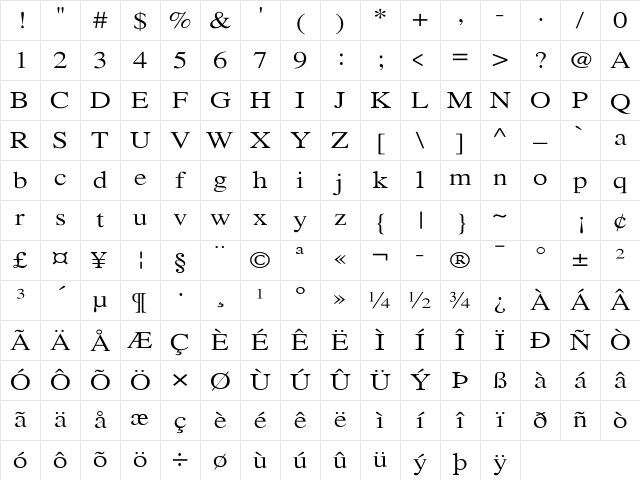
Xerox Serif Wide Regular
Xerox Serif Wide Family
Xerox Serif Wide Regular
Complete Xerox Serif Wide Regular glyph index. Displaying only characters natively supported by Xerox Serif Wide Regular font.
Design Context for Xerox Serif Wide
Xerox Serif Wide carries the refined structure of traditional serif typography, with bracketed terminals and considered proportions that communicate credibility and craft.
Pro Tip: Use Xerox Serif Wide for editorial body copy and considered headline work. Pair with a neutral sans for UI elements or captions to create a classic hierarchy.